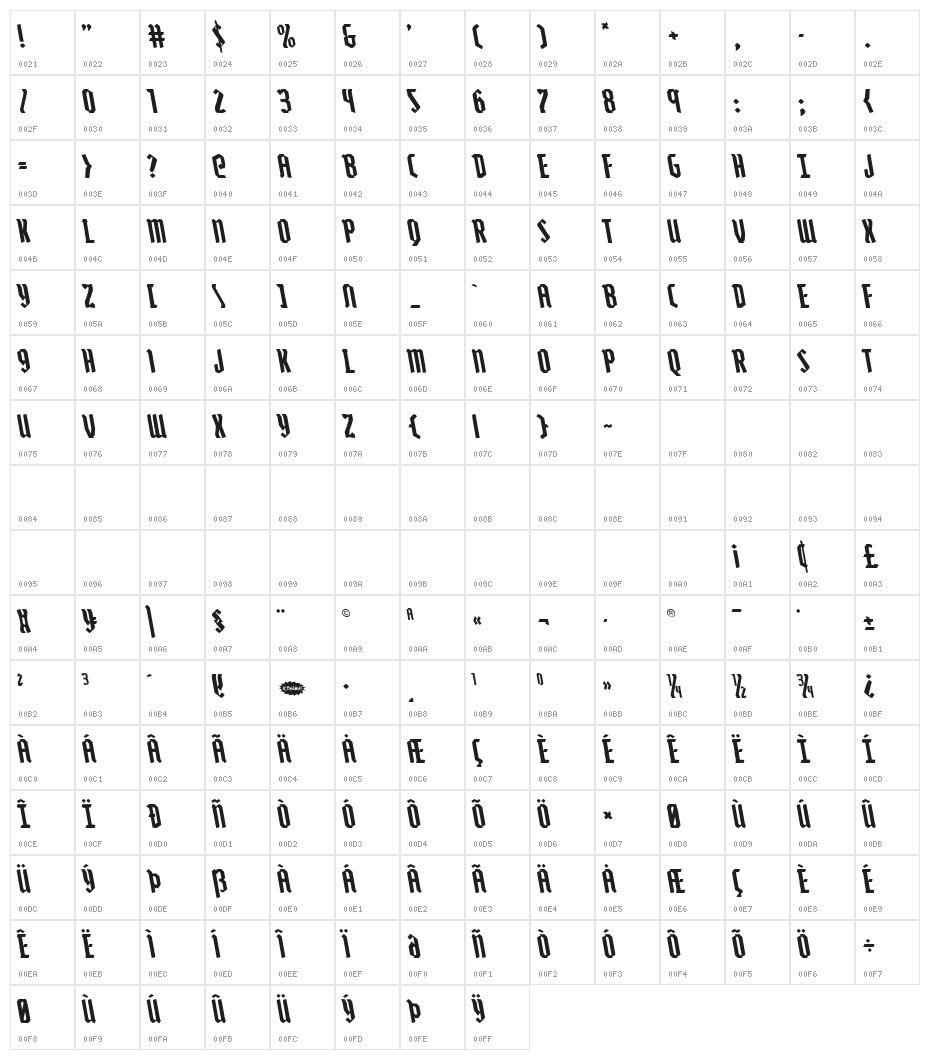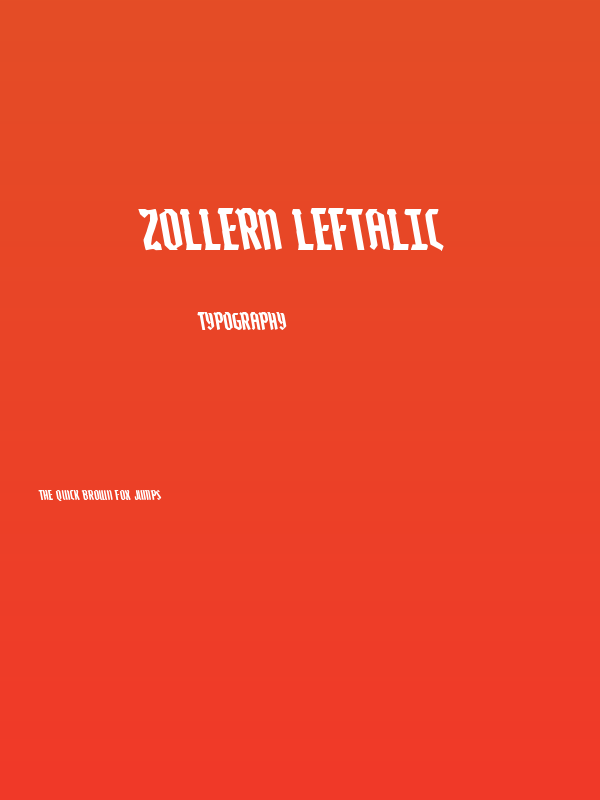
Zollern Leftalic Font
Zollern Leftalic Description
This font features a bold and angular design with a distinct leftward slant, giving it a dynamic and energetic appearance. The characters are sharply defined with thick strokes and pointed edges, creating a strong visual impact. The uppercase and lowercase letters maintain a consistent style, while the numerals and special characters complement the overall aesthetic. The font's unique style makes it stand out, suitable for attention-grabbing designs.
| Proposed Projects | Ideal for posters, logos, branding materials, and any design requiring a bold statement. |